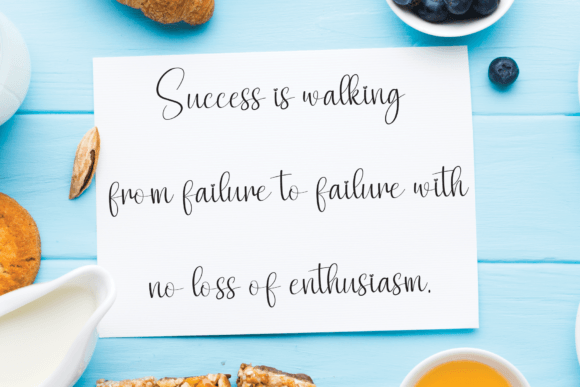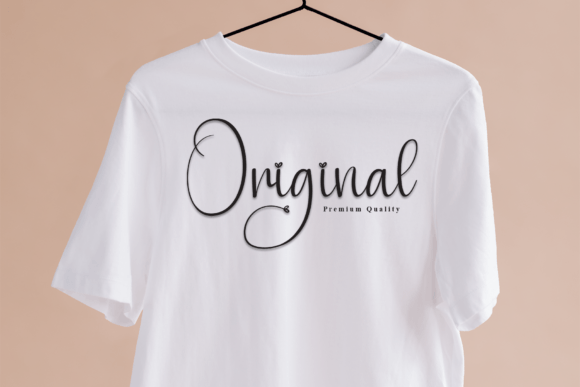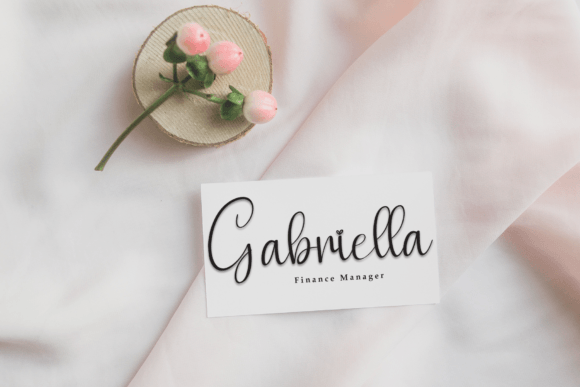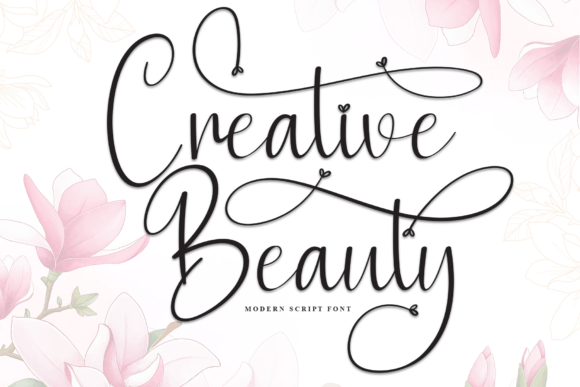
Introduction to Creative Beauty Font
Creative Beauty is a dazzling script font.
This font is neatly crafted and highly detailed Whatever the topic, this font will be a wonderful asset to your font library, as it has the potential to enhance any creation.
Why Choose Creative Beauty Font?
Creative Beauty Font offers exceptional quality and versatility, making it a valuable addition to your design toolkit. Whether you’re creating for personal projects or commercial use, Creative Beauty Font delivers professional results.